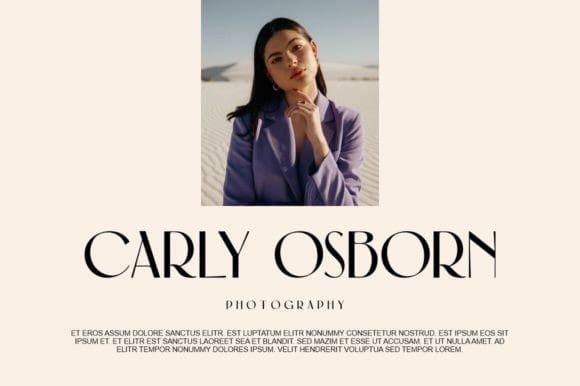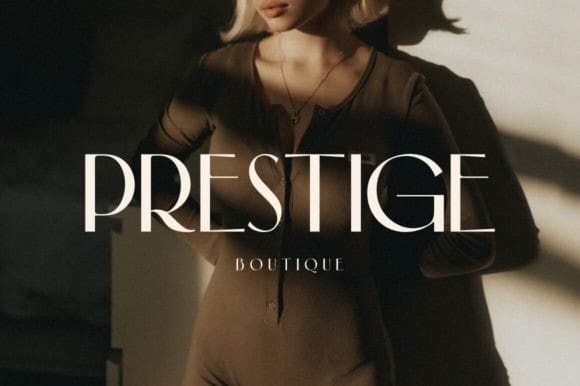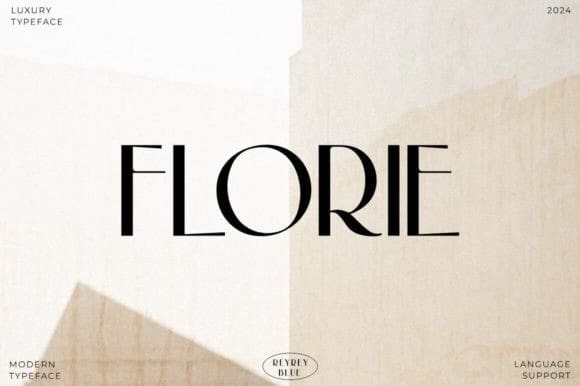
Florie Font
Florie Font is a beautiful sans serif font. With its clean lines and modern elegance, it can be the best solution to make their designs look more beautiful and modern. This type of font is perfectly made to be applied especially in logos, headlines, signage, and other various formal forms such as invitations, labels, logos, magazines, books, greeting/wedding cards, packaging, fashion, makeup, stationery, novels, labels, or any advertising purpose.